Discover 10 of the best fonts in 2019!
More than half of the year is already history—time to talk about the most popular fonts of the year 2019. At the halfway point of the year, there is no need for speculations and predictions. We can clearly say which fonts are currently hot and which are not. In order to make this collection more useful to you, we rather wanted to provide you with a handpicked selection of fonts from different genres such as sans, serif, and script typefaces instead of focusing on the most downloaded or most commonly purchased fonts in general. Even the release date doesn’t matter. Hence, the following selection is focusing on a variety of typographic trends. To make it short, this is our handpicked selection of 10 best fonts in 2019.
10th: Magnat—Display Font
Designed and published by René Bieder in 2019, Magnat is a contrasting sans serif display font family that draws inspiration from typefaces of the golden twenties. The family consists of 36 styles in total. The German type designer has masterfully translated these classic design principles into a modern font family. The mix of closed apertures and contrasting strokes is resulting in an elegant and distinctive typeface.
9th: Handelson—Handwritten Font
Handelson is a set of 6 hand-drawn fonts created by Mika Melvas. The collection consists of 3 script styles, 1 non-connected script, and 2 (all caps) sans serifs. Due to the use of organic textures and rough edges, the handmade fonts offer an authentic look. The different styles can be combined in various ways. You can enable contextual alternates in your OpenType panel to give your lettering an even more versatile appearance.
8th: Brandon Grotesque—Award-Winning Sans Serif
Brandon Grotesque is the most popular type family from German foundry HVD Fonts. Designed by type designer Hannes von Döhren in 2009/2010, the family offers a functional, geometric style. The thin and black weights are well-suited for headings while the regular and medium weights work quite well in common text sizes. Its small x-height and simple shapes result in a distinctive typographic style.
7th: Northwell—Natural Script Typeface
Here comes a font with great value for money. Made in a natural handwriting style, the Northwell typeface by Sam Parrett is well suited for a wide range of work including logos, branding projects, invitations, product packaging, just to name a few. It consists of a regular and alternative style as well as a set of stylish swashes. This simple handwriting font also includes ligatures for several lowercase letters and supports multiple languages.
6th: Avenir Next—The Revision of a Legend
Avenir Next is a revised font family based on Adrian Frutiger‘s famous Avenir sans serif type family. In 2004, the legendary Swiss type designer revised the family in cooperation with Linotype in-house designer Akira Kobayashi to adjust the typeface for use on screen. With its extended character set and OpenType features, Avenir Pro was made for the highest typographical demands.
5th: Recoleta—Soft and Gentle Shapes
The Recoleta font family has been designed in 2018 by Jorge Cisterna for foundry Latinotype. It combines various typographic characteristics ranging from soft and gentle shapes to angled strokes. The family was made for the use in headlines as well as short text sections. All weights are accompanied by a set of alternates.
4th: TT Norms—Geometric Grotesk Font Family
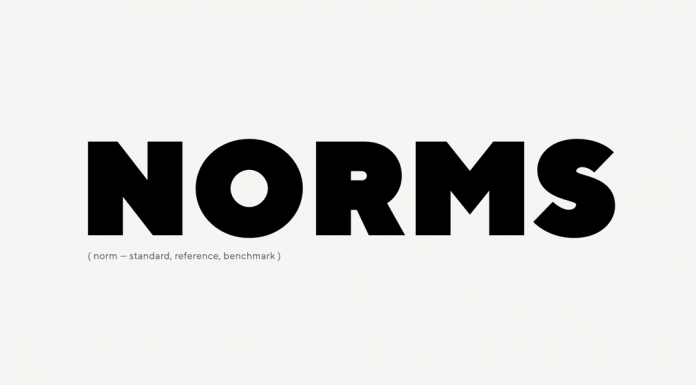
Ivan Gladkikh and his TypeType team have created this modern, geometric grotesk font family. TT Norms comes in 18 styles consisting of 9 weights plus matching Italics. Furthermore, it includes several OpenType features. Its characteristic typeface is based on clean proportions and a straightforward look.
3rd: Blacker—Family with 2 Free Fonts
Blacker is a wedge serif font family published by the Zetafonts Type Foundry. It comes with two free fonts and lots of typographic features. The two type designers Cosimo Lorenzo Pancini and Andrea Tartarelli have created the contrasting font family in 2018. Blacker consists of two subfamilies: a display and a text version. Both subfamilies consist of six weights ranging from light to heavy plus true Italics. The family is mainly characterized by high contrast and sharp wedge serifs.
Helvetica Now—Redrawn for Today’s Typographic Needs
Monotype’s Helvetica Now is the redrawn and refitted version of the best-known typeface to fit today’s typographic needs. It is available in three optical sizes (Micro, Text, and Display). In total, the family consists of 48 fonts. Every single character has been redrawn and refitted. Equipped with countless alternate letters, Helvetica Now still preserves the typical features of simplicity and functionality, while updating it with certain features for the demands of contemporary graphic design and typography.
1st: Gilroy—Modern Sans Serif Font Family
Last but not least, here comes our number one on the list of top 10 fonts in 2019. Designed and published by Radomir Tinkov in 2016, Gilroy is another font family that was made for today’s typographical requirements. Whether printed or on screen, the typeface offers an uncompromising and precise look in every aspect of design. The modern sans serif family comes in 20 styles consisting of 10 uprights plus 10 Italics. Its weights range from a delicate thin version to a massive heavyweight.
Brandon Grotesque should be number 1.
In my opinion, Brandon Grotesque is the best from the list. The chosen image doesn’t really represents the actual style and strength of the family. It’s a great typeface for multiple applications.